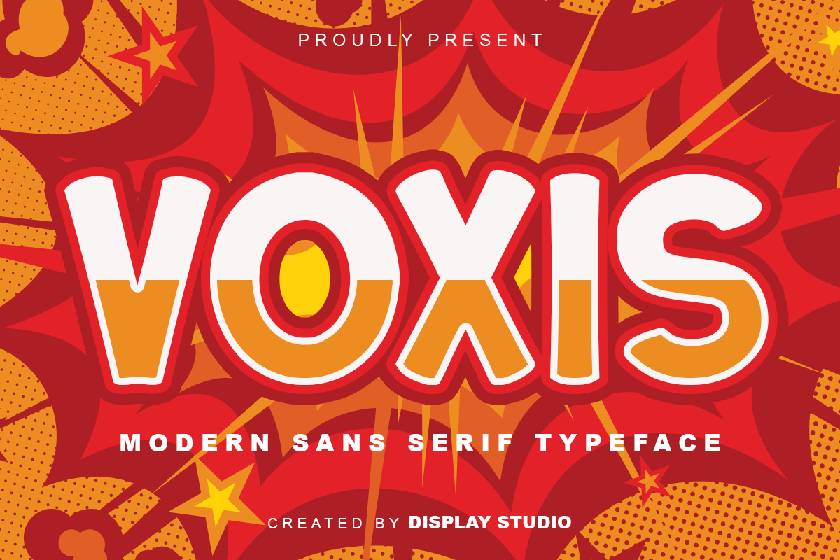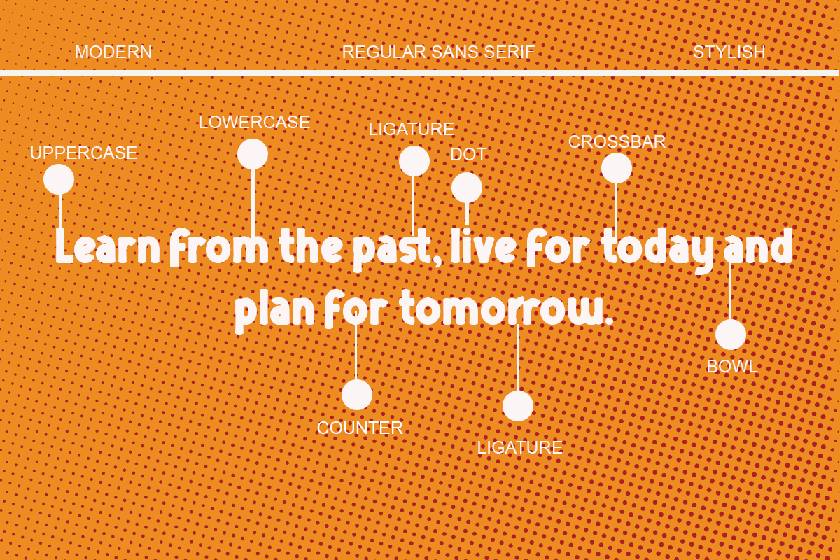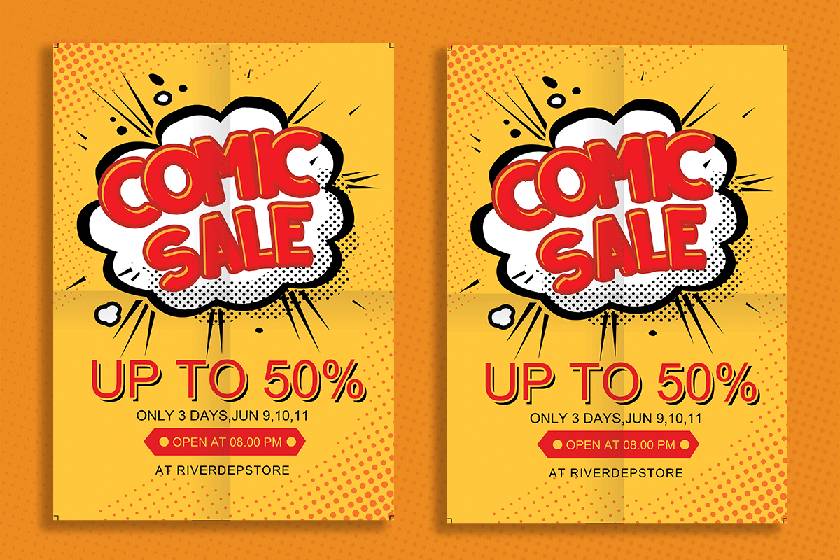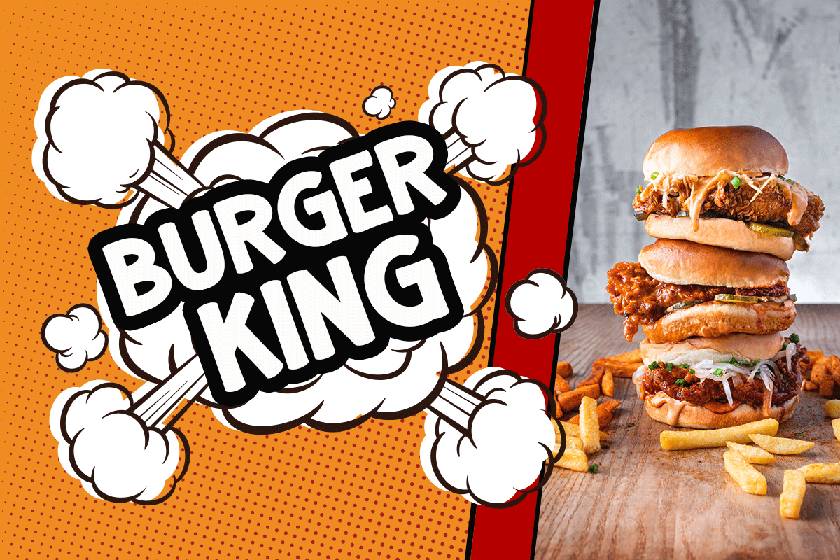
Voxis is a bold, playful sans serif font with soft, rounded edges and a casual, slightly irregular feel that adds personality and warmth. Its high x-height and moderately tight spacing make it highly readable while maintaining a friendly and approachable look, ideal for fun, informal designs. This font works well in children's books, posters, websites, and branding projects where a lively and inviting tone is desired.
Voxis Font
About Voxis Font
| Font family | Voxis Font |